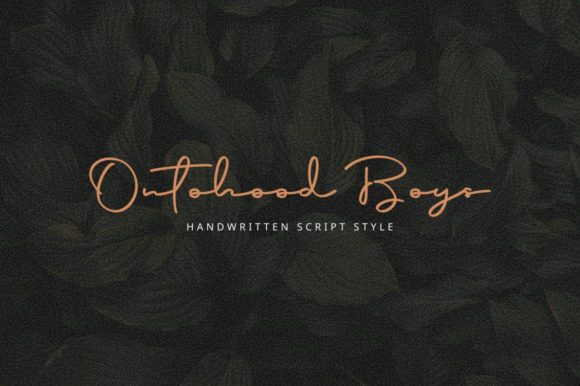
Unleash the Spirit of Youthful Elegance with Ontohood Boys Font: A Cursive Masterpiece for Artistic Expression
Journey into the world of Ontohood Boys, a mesmerizing script font that captures the essence of youthful exuberance and heartfelt emotions. Crafted with an exquisite continuous handwritten style, this font transcends the boundaries of ordinary typography, transforming your designs into captivating works of art.
With its enchanting flow and elegant curves, Ontohood Boys adds a touch of authenticity and charm to every project. Whether you're a seasoned designer or a creative enthusiast, this font will elevate your imagination and inspire you to create designs that resonate with your audience.
Dive into the boundless versatility of Ontohood Boys. Its meticulously crafted characters dance across the page, exuding a sense of playfulness and sophistication. Perfect for both professional and branding endeavors, this font brings a touch of individuality to logos, branding materials, product packaging, and social media graphics. It's the ideal choice for capturing the attention of your target audience and leaving a lasting impression.
Embrace the artistry of Ontohood Boys and watch your designs come to life. Its seamless flow and captivating aesthetics will transform your projects into visually stunning masterpieces. Experience the magic of this font and unlock the full potential of your creative vision.